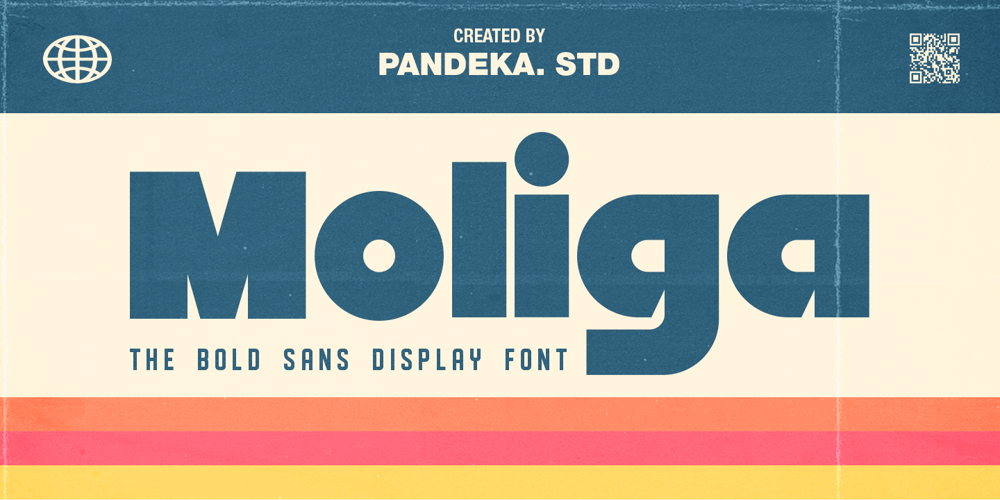
Moliga Font Family was designed by Sagara Nararya and published by Pandeka Studio. Moliga contains 1 styles and family package options. Introducing Moliga! An Display typeface with mid century feeling.Moliga is a sans-serif typeface with a heavy touch. The concept is a big x-height and small ascender. This font is perfect for branding, titling, headline, and more.This typeface adds a bold and iconic style to your artworks, both retro and modern. a font with a big fat personality that will make all your artistic creations come alive with style and weightWhat’s Included? Moliga Main Files Unique Gylph Letters Instructions (Access special characters in all apps, even in Cricut Design) Accessible in Adobe Illustrator, Adobe Photoshop, Microsoft Word even Canva! PUA Encoded Characters. Fully accessible without additional design software Language Support: Danish, English, Estonian, Filipino, Finnish, French, Friulian, Galician, German, Gusii, Indonesian, Irish, Italian, Luxembourgish, Norwegian Bokmål, Norwegian Nynorsk, Nyankole, Oromo, Portuguese, Romansh, Rombo, Spanish, Swedish, Swiss-German, Uzbek (Latin)Feel free to follow, like and share. Thanks so much for checking out my shop!Have a great day!Pandeka Studio